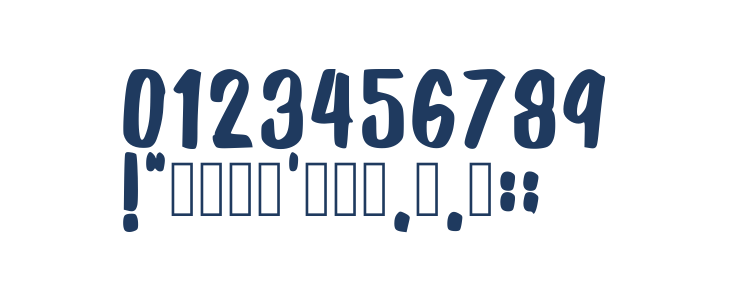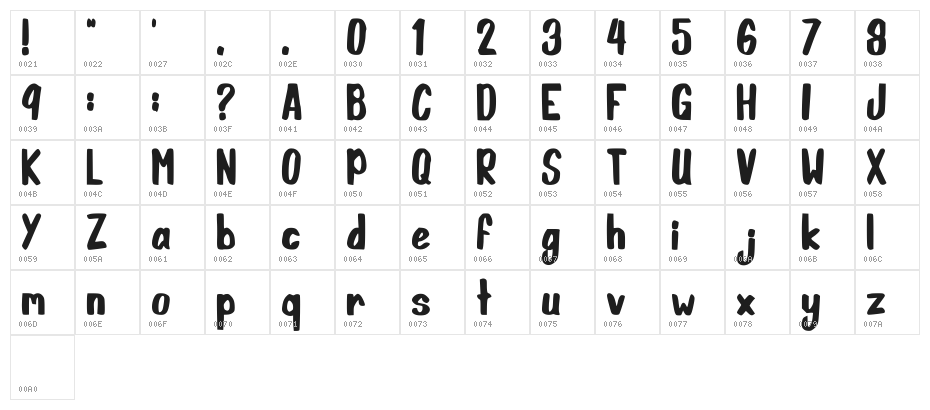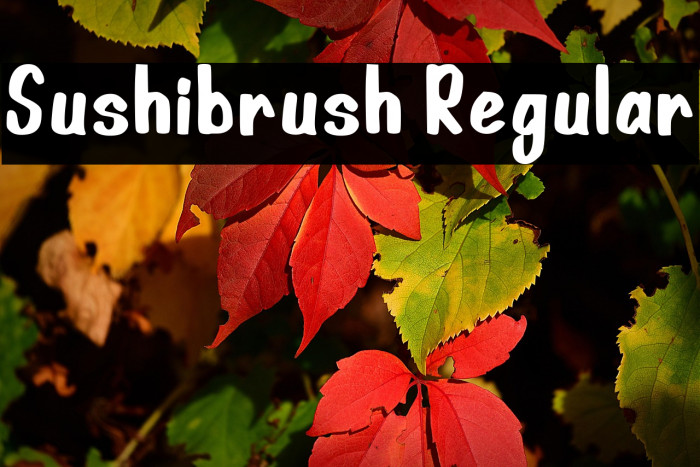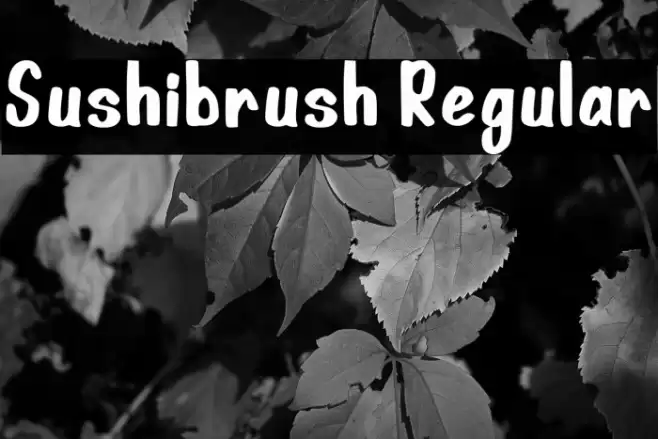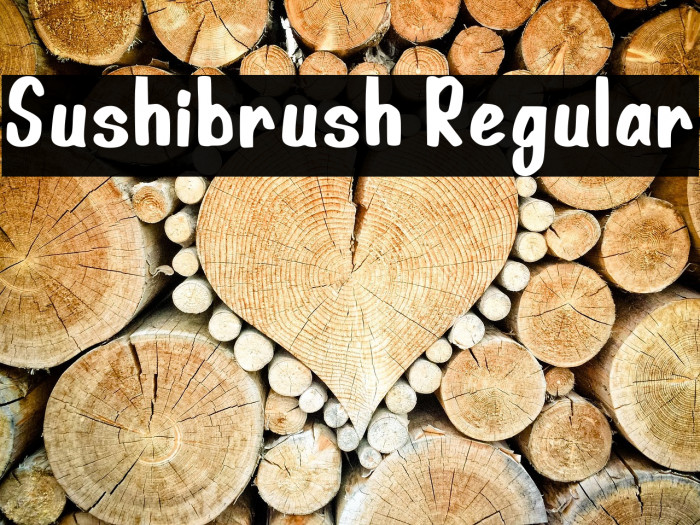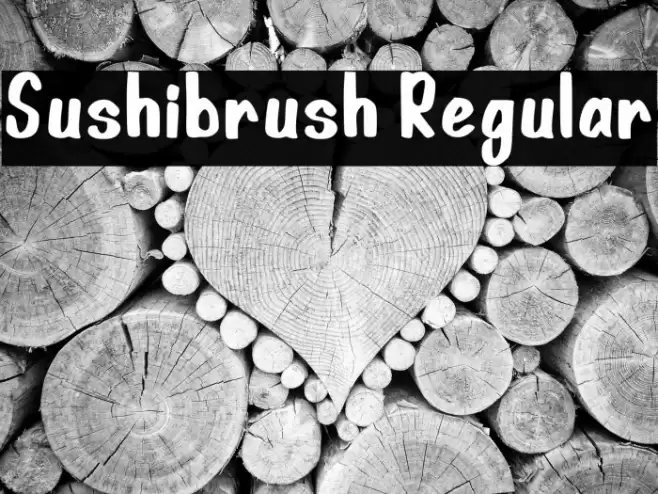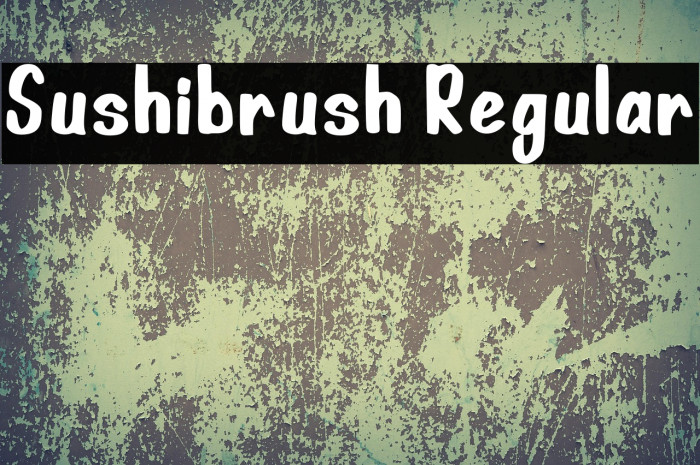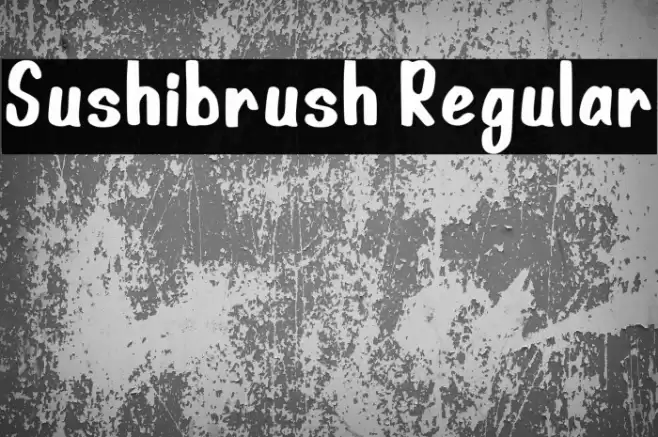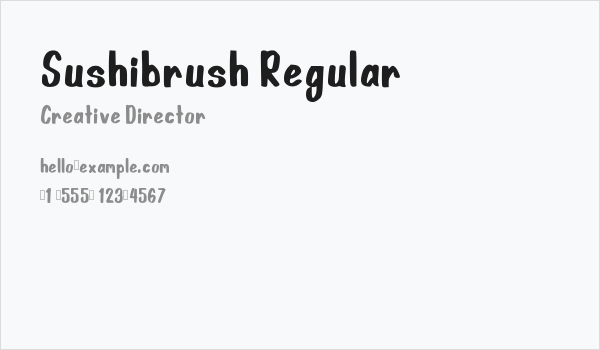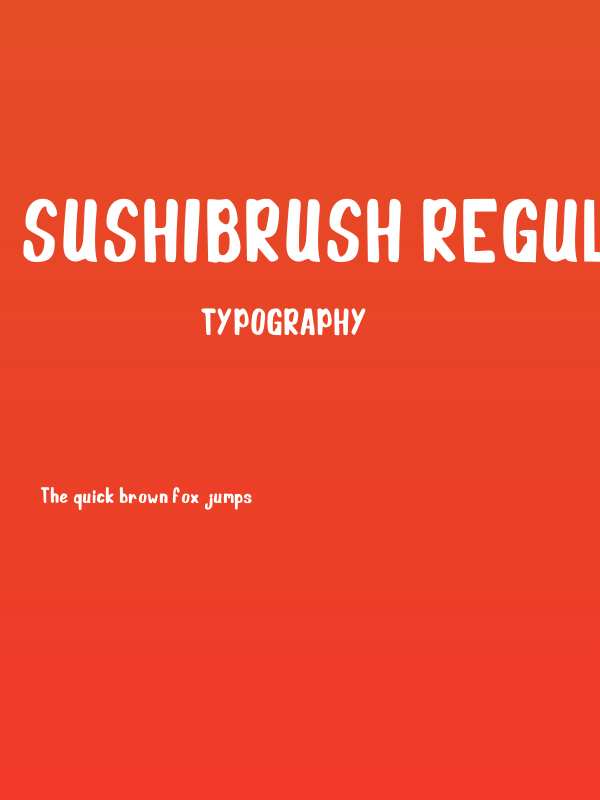
Sushibrush Regular Font
Sushibrush Regular Description
This font features a playful and bold brush style, characterized by its thick, rounded strokes and casual, hand-drawn appearance. The letters are slightly irregular, adding a whimsical and artistic touch. The uppercase and lowercase characters maintain a consistent style, with a noticeable emphasis on curves and fluidity. The numbers and special characters follow the same design principles, ensuring a cohesive look across all glyphs. This font is perfect for projects that require a fun and informal aesthetic, such as children's books, playful branding, or creative posters.
| Overall Style | Playful, Artistic |
| Proposed Projects | Ideal for children's books, playful branding, creative posters, and informal invitations. |